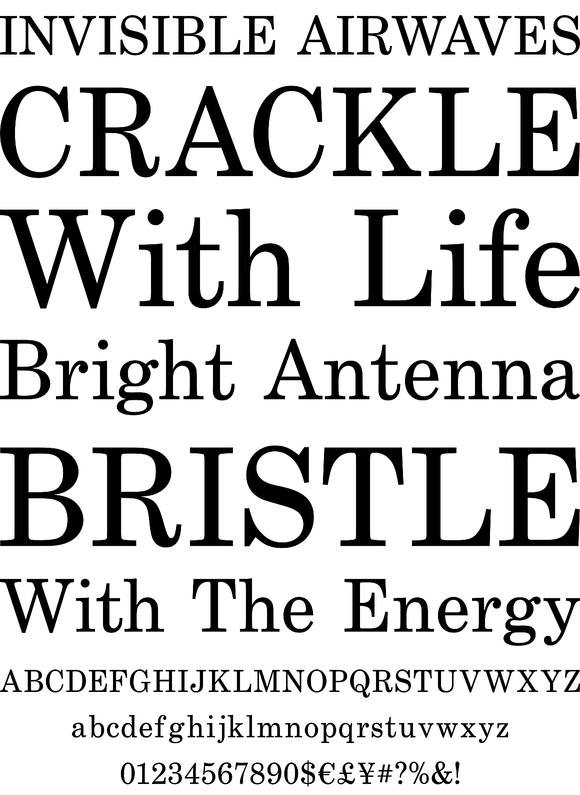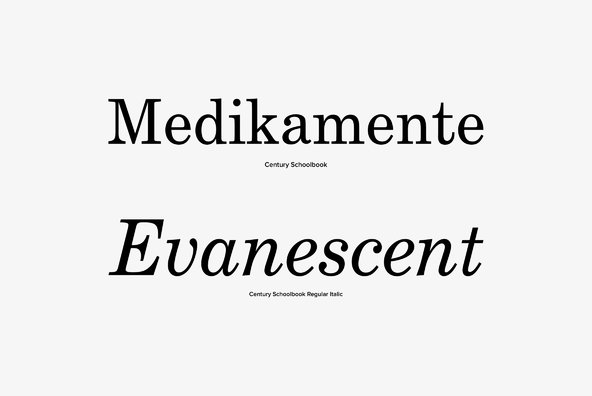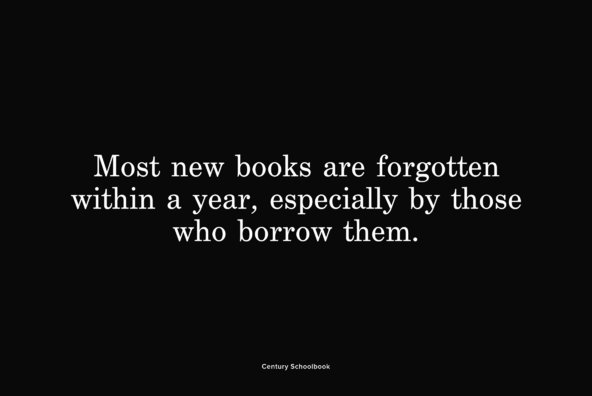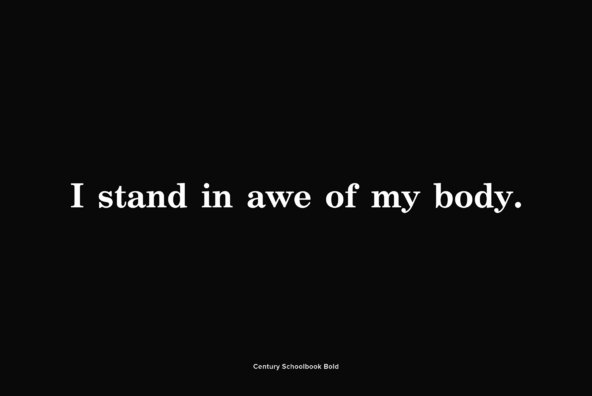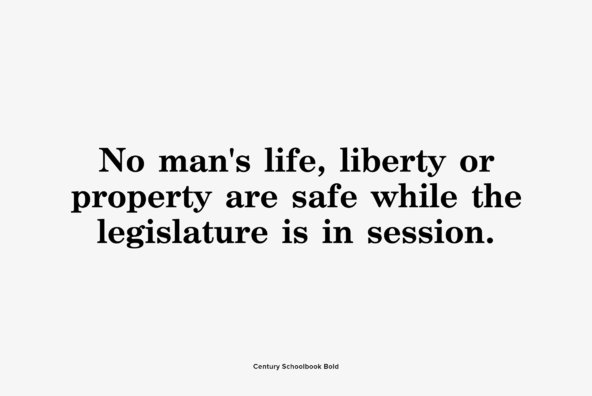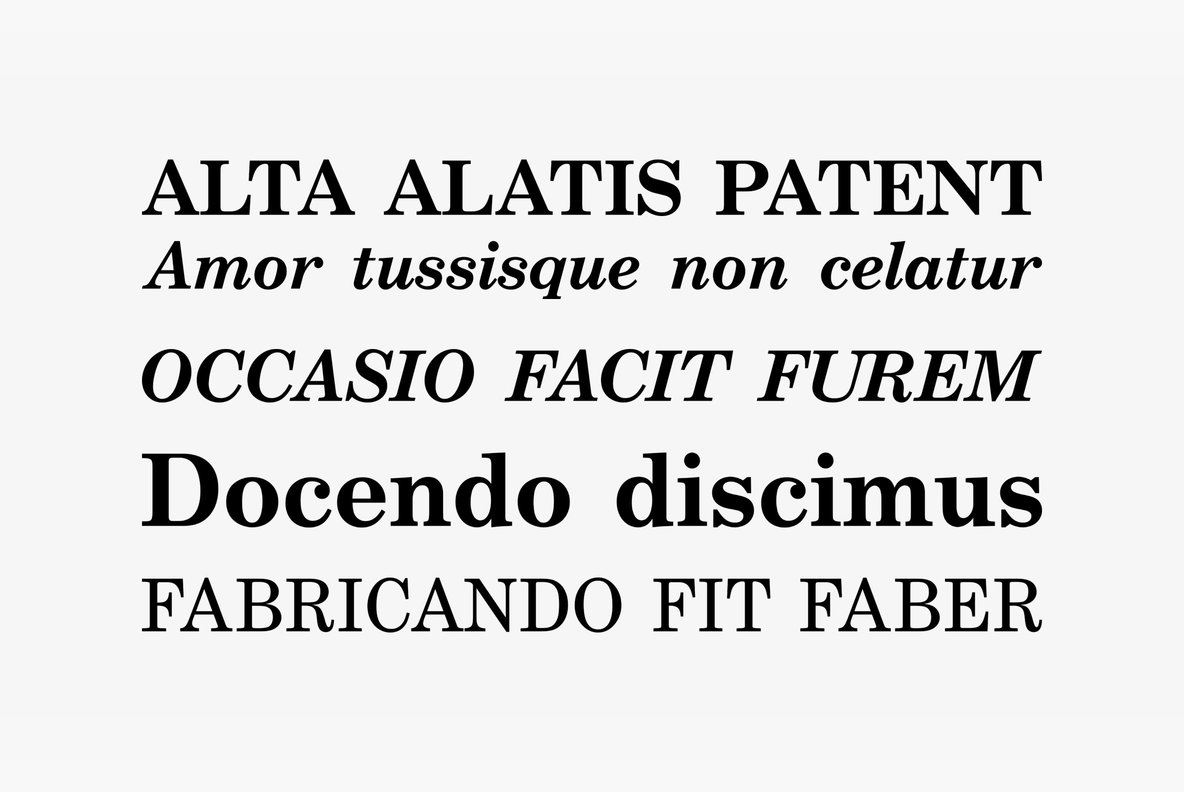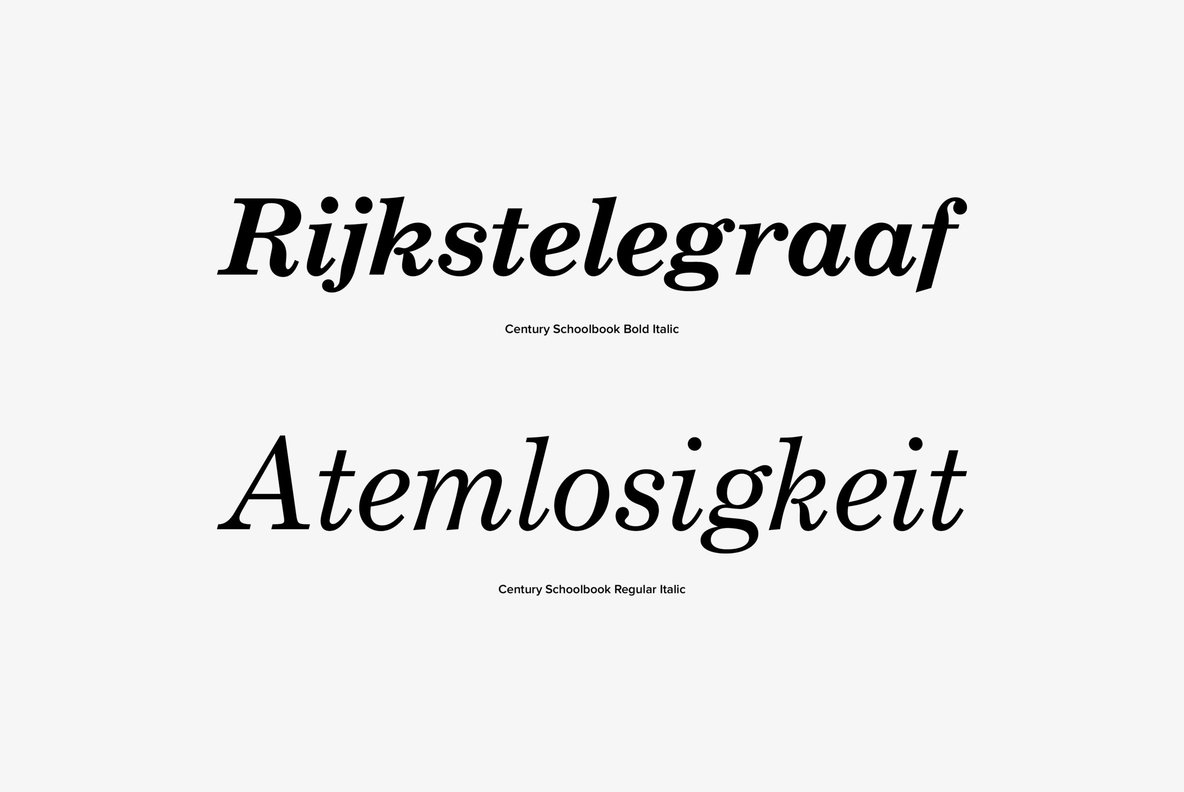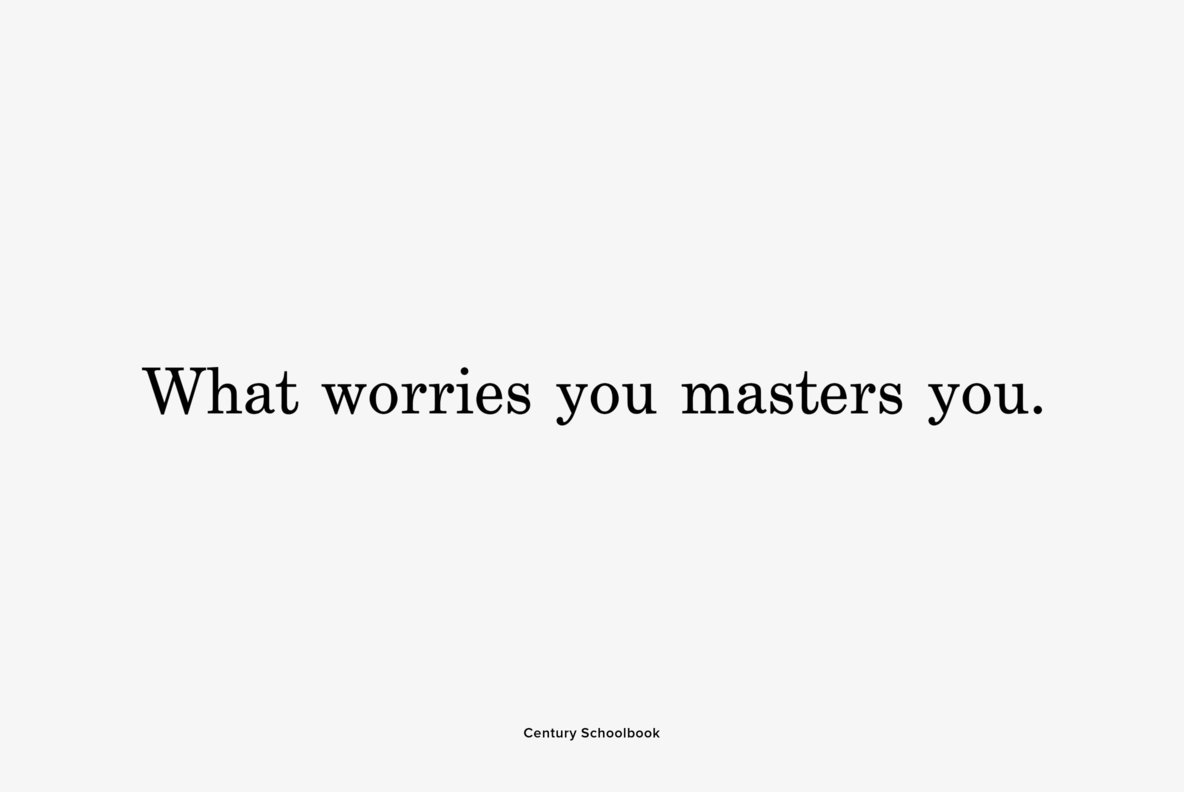
Century Schoolbook is a classic and elegant serif font, originally designed by Morris Fuller Benton in 1917. Century Schoolbook contains West, East, Turkish, Baltic, Romanian language support.